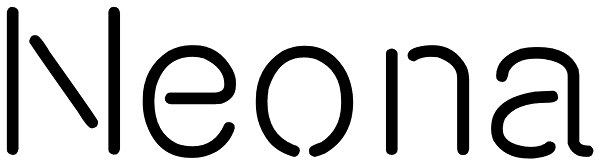
Neona
Neona is a font in the spirit of the standard 'no frills' sans-serif 4-inch-high neon sign text used in cheap bars, coffee shops, bakeries and tattoo parlors around the world.